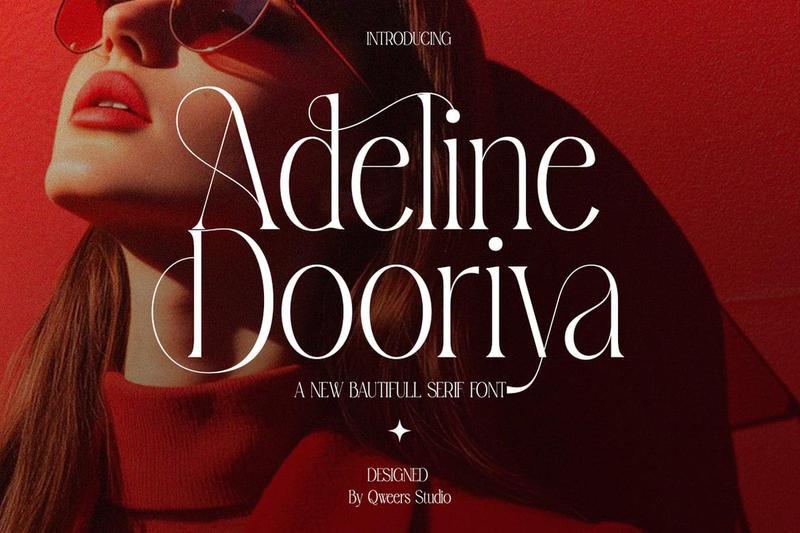
Beautiful Luxury Serif Branding – Adeline Dooriya VRSBUCH
**Adeline Dooriya** is a beautiful luxury serif typeface designed to bring elegance, fashion energy, and premium sophistication into modern creative projects. Featuring refined letterforms, graceful curves, stylish alternates, and elegant ligatures, this font creates a bold yet feminine typographic presence.
Perfect for luxury branding, fashion editorials, beauty packaging, perfume labels, boutique identities, wedding invitations, magazine layouts, premium logos, and upscale marketing materials.
Adeline Dooriya blends modern serif refinement with glamorous editorial beauty, making it an excellent choice for designers seeking luxurious typography with a confident fashion-forward personality.
**Features**
– Uppercase & lowercase
– Alternates & ligatures
– Multilingual support
– Professional kerning
– Regular & Italic
**Perfect For**
Luxury branding, fashion editorials, beauty packaging, perfume labels, boutique logos, wedding invitations, magazine layouts